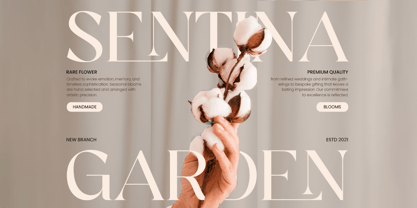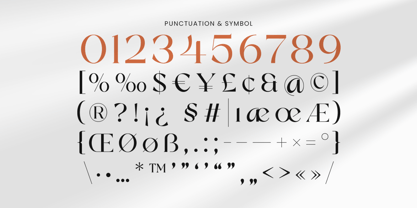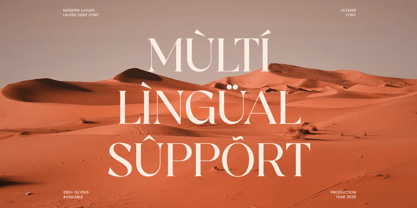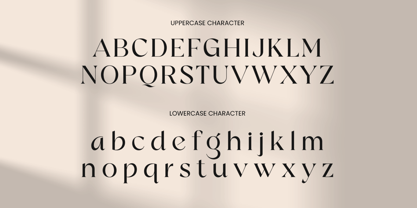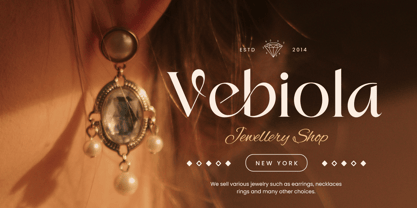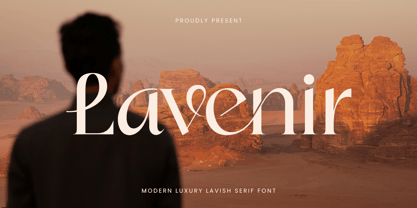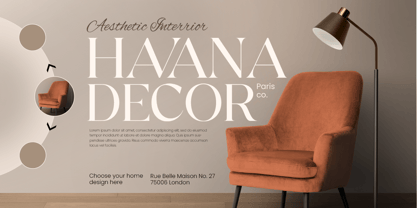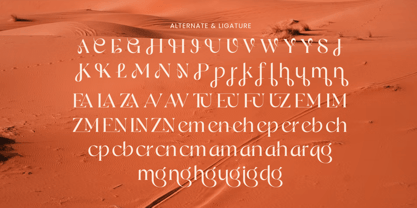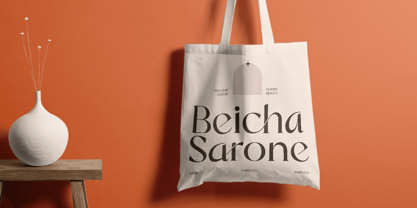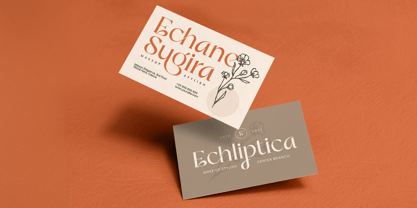
Lavenir is a modern lavish serif font designed to bring sophistication and elegance to your creative projects. Ideal for high-end branding, logos, editorial design, packaging, and digital or print media, it combines contemporary style with timeless luxury.
With refined letterforms and balanced proportions, Lavenir ensures readability while delivering a premium aesthetic, making it a versatile choice for designers seeking a classy and modern serif typeface.
Lavenir – Modern Lavish Serif Font Features
Modern and lavish serif character set
Perfect for luxury branding and elegant designs
Includes uppercase, lowercase, numerals, and punctuation
Suitable for digital and print projects
OpenType features for enhanced versatility
Multilingual support for Afrikaans, Albanian, Asu, Basque, Bemba, Bena, Breton, Chiga, Cornish, Dutch, English, Estonian, Filipino, Finnish, Friulian, Galician, German, Gusii, Indonesian, Irish, Italian, Kabuverdianu, Kalenjin, Kinyarwanda, Luo, Luxembourgish, Luyia, Machame, Makhuwa-Meetto, Makonde, Malagasy, Manx, Morisyen, North Ndebele, Nyankole, Oromo, Portuguese, Quechua, Romansh, Rombo, Rundi, Rwa, Samburu, Sango, Sangu, Scottish Gaelic, Sena, Shambala, Shona, Soga, Somali, Spanish, Swahili, Swedish, Swiss, and more.